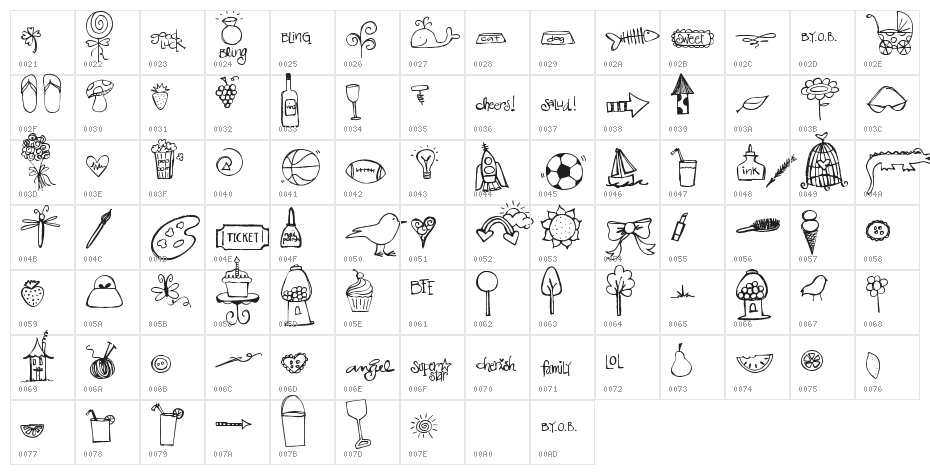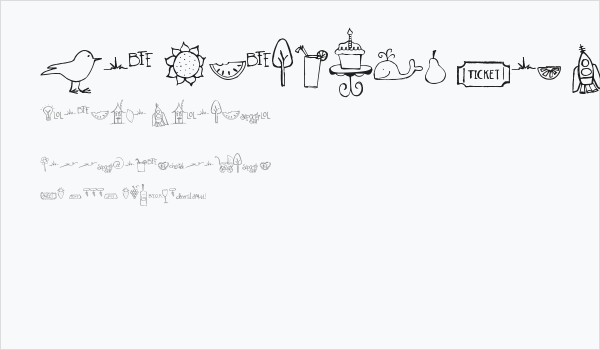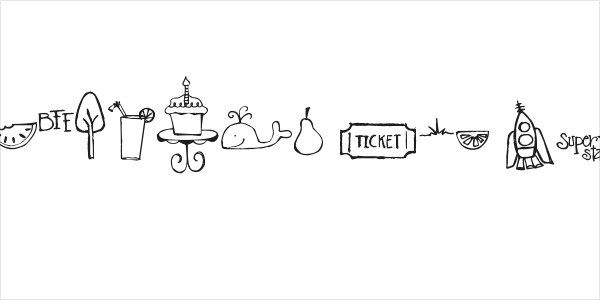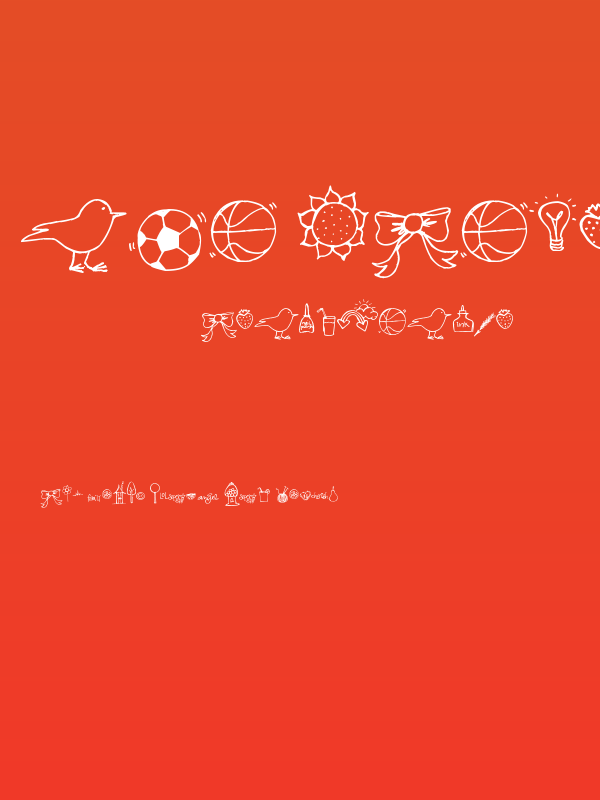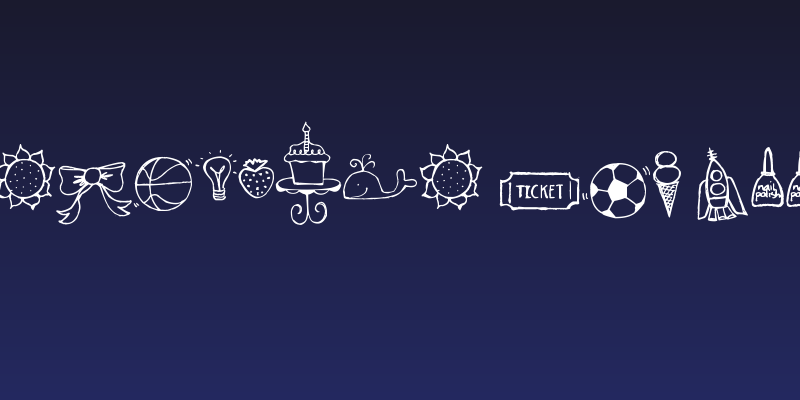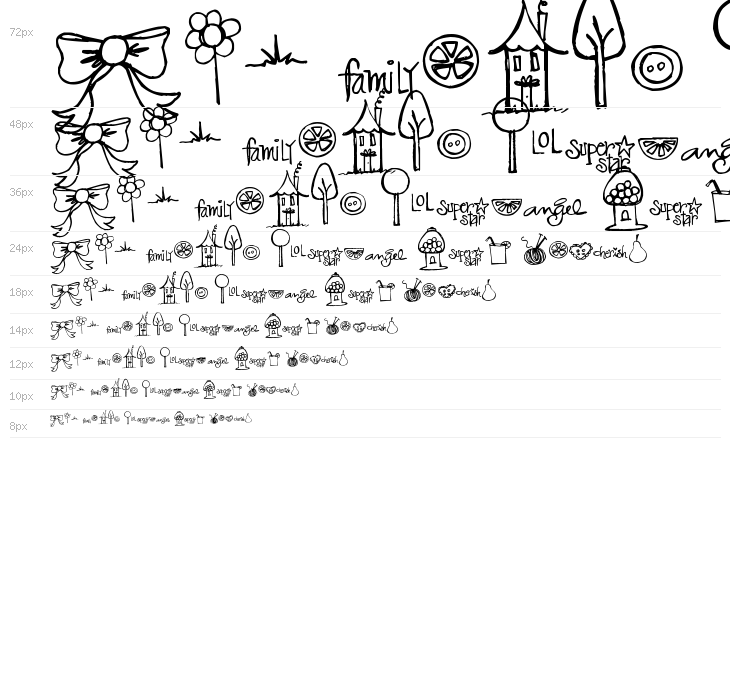
This collection features a whimsical and playful set of doodles, each with a unique and hand-drawn appearance. The designs include a variety of objects and symbols such as sports equipment, animals, food items, and abstract shapes. Each doodle is crafted with a casual, sketch-like quality, giving them a charming and informal feel. The lines are varied in thickness, adding to the hand-drawn aesthetic. This set is perfect for adding a touch of fun and creativity to any project, with its diverse range of elements that can be used individually or combined for a more complex design.
| Overall Style | Whimsical |
| Use Case | Decorative elements, Illustrations |
| Proposed Projects | Ideal for scrapbooking, greeting cards, children's book illustrations, and creative social media graphics. |